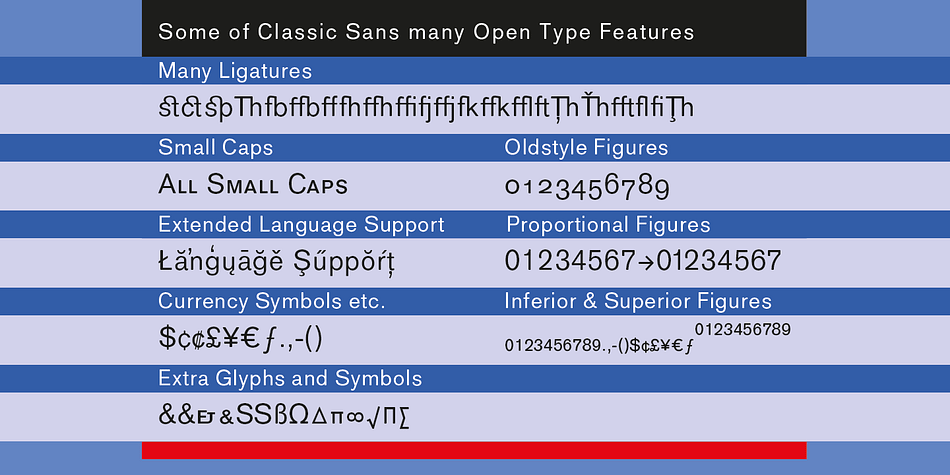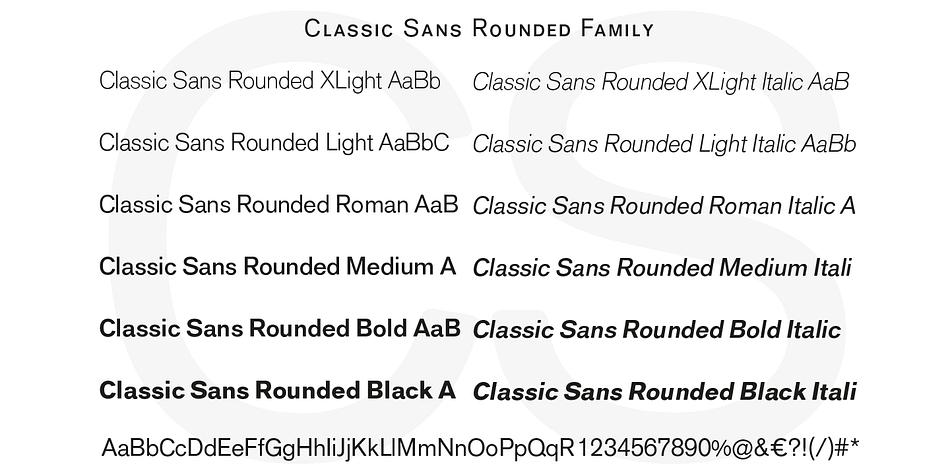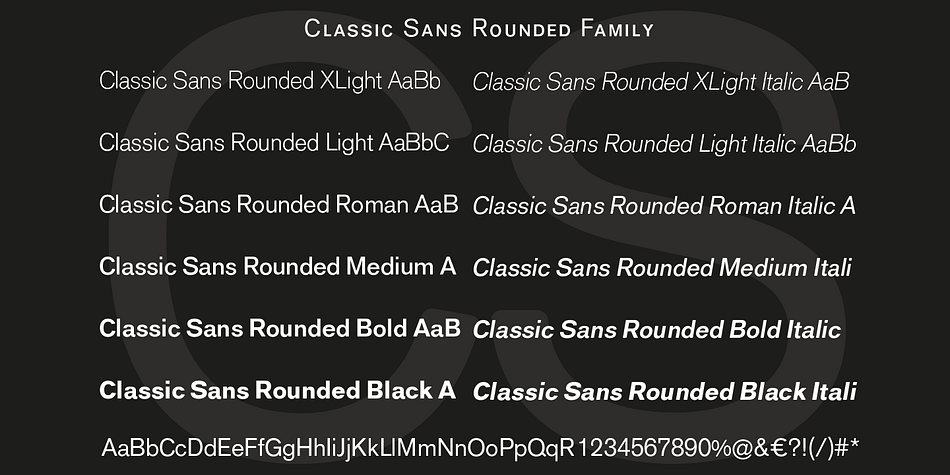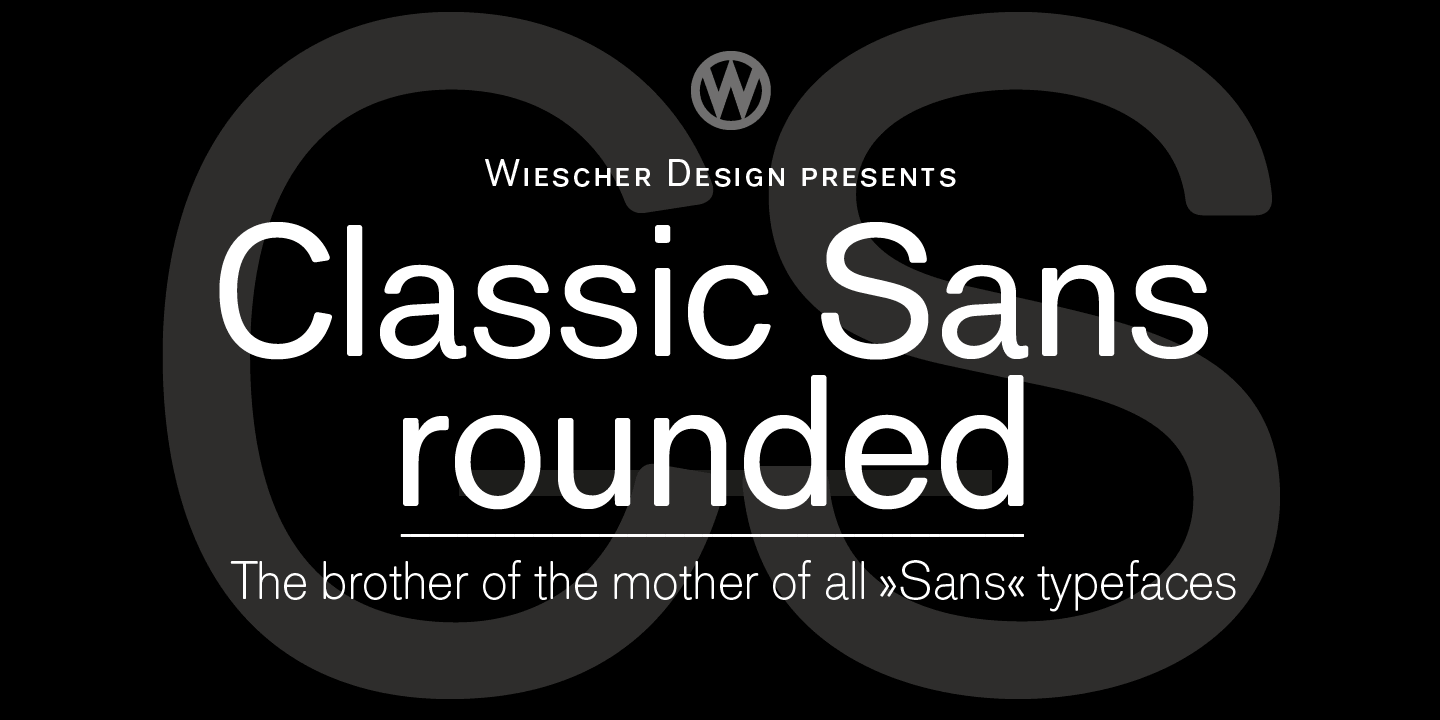
Classic Sans Rounded is a sans serif font family. This typeface has twelve styles and was published by Wiescher-Design.
Classic Sans Rounded is the brother of the mother of all sans typefaces.
I designed the rounded version because there seems to be a need for soft sans typefaces and I like them very much myself. The font has small-caps, all kinds of numbers as well as ligatures and currency symbols, I also added the necessary diacritics in order to make the typeface usable for most latin-writing languages.
Classic Sans Rounded 12-Pack contains the following cuts: XLight and XLight-Italic, Light and Light-Italic, Medium and Medium-Italic, Roman and Roman-Italic, Bold and Bold-Italic as well as Black and Black-Italic. The Medium weight is lighter than the Roman and can be used to typeset a lighter but sturdy body-copy.